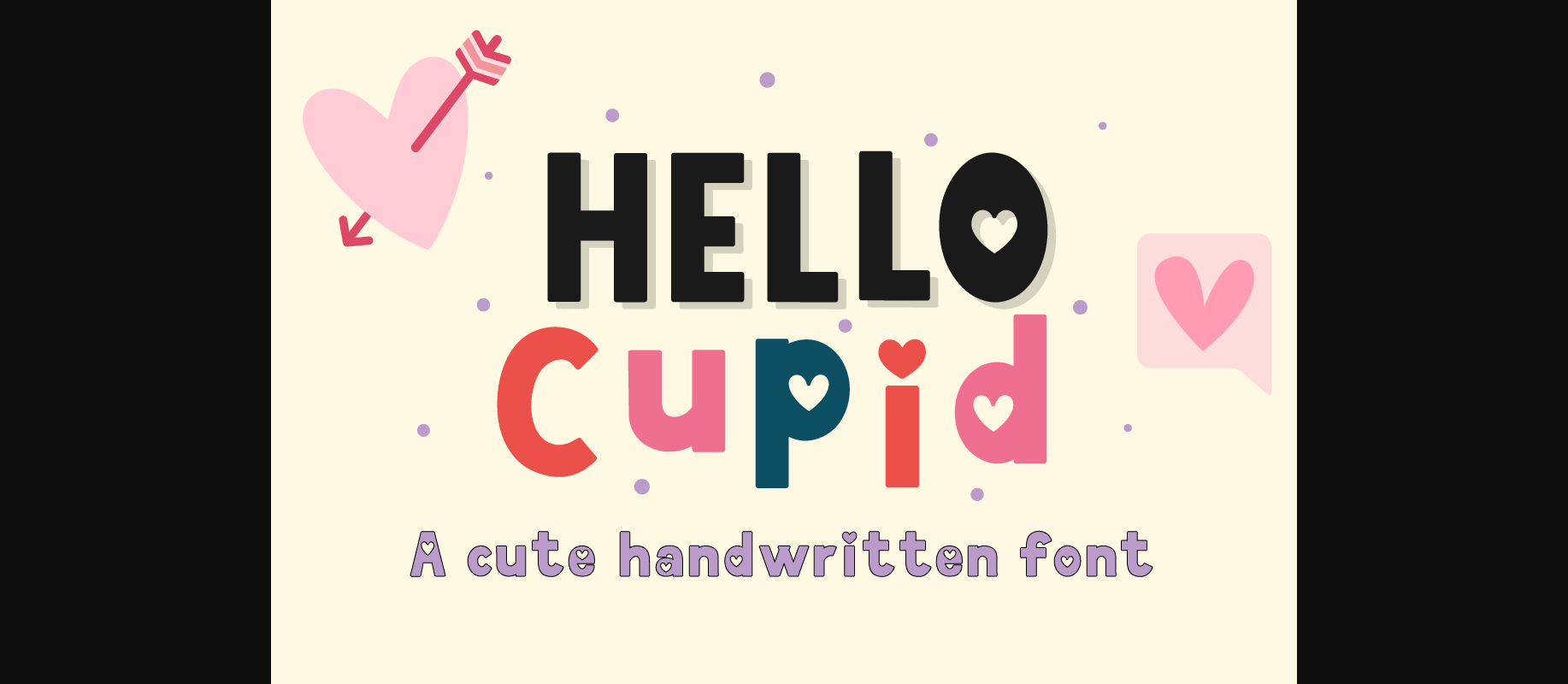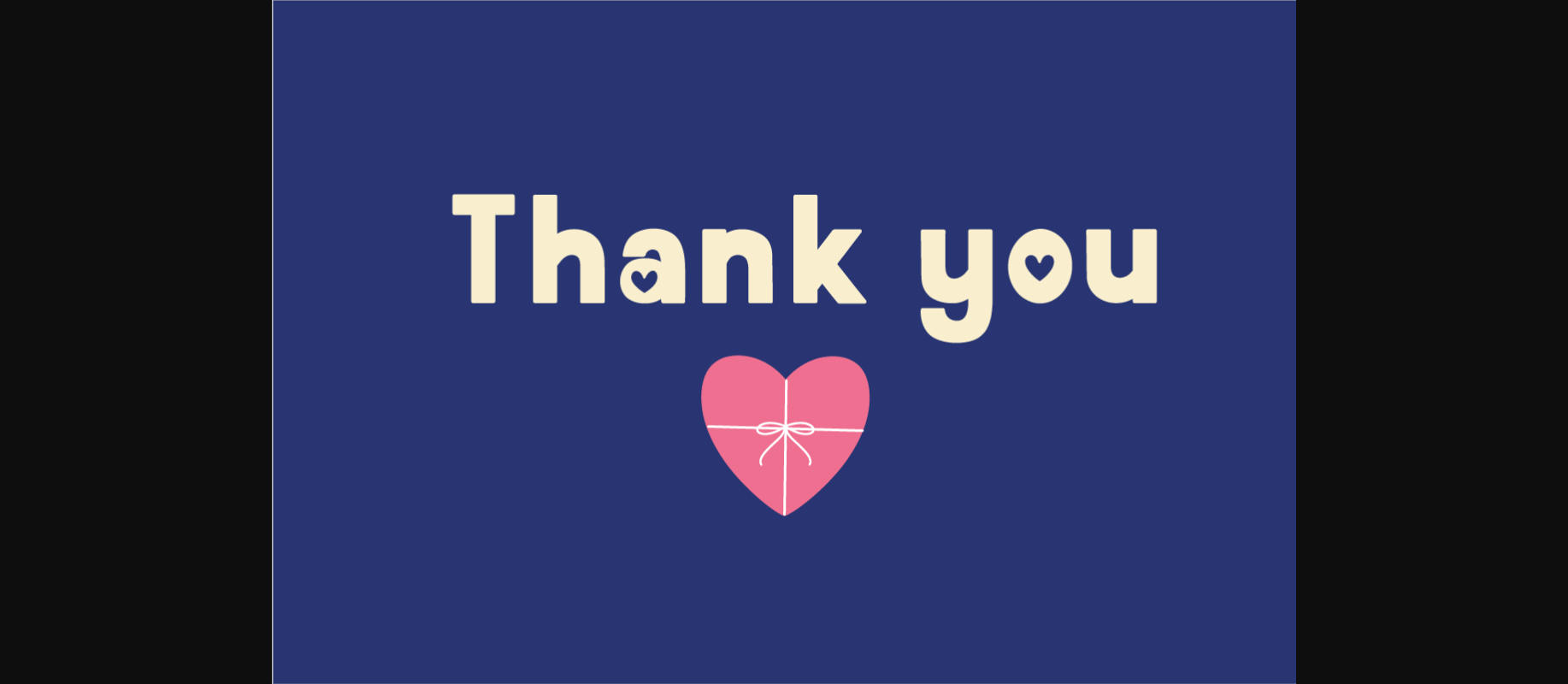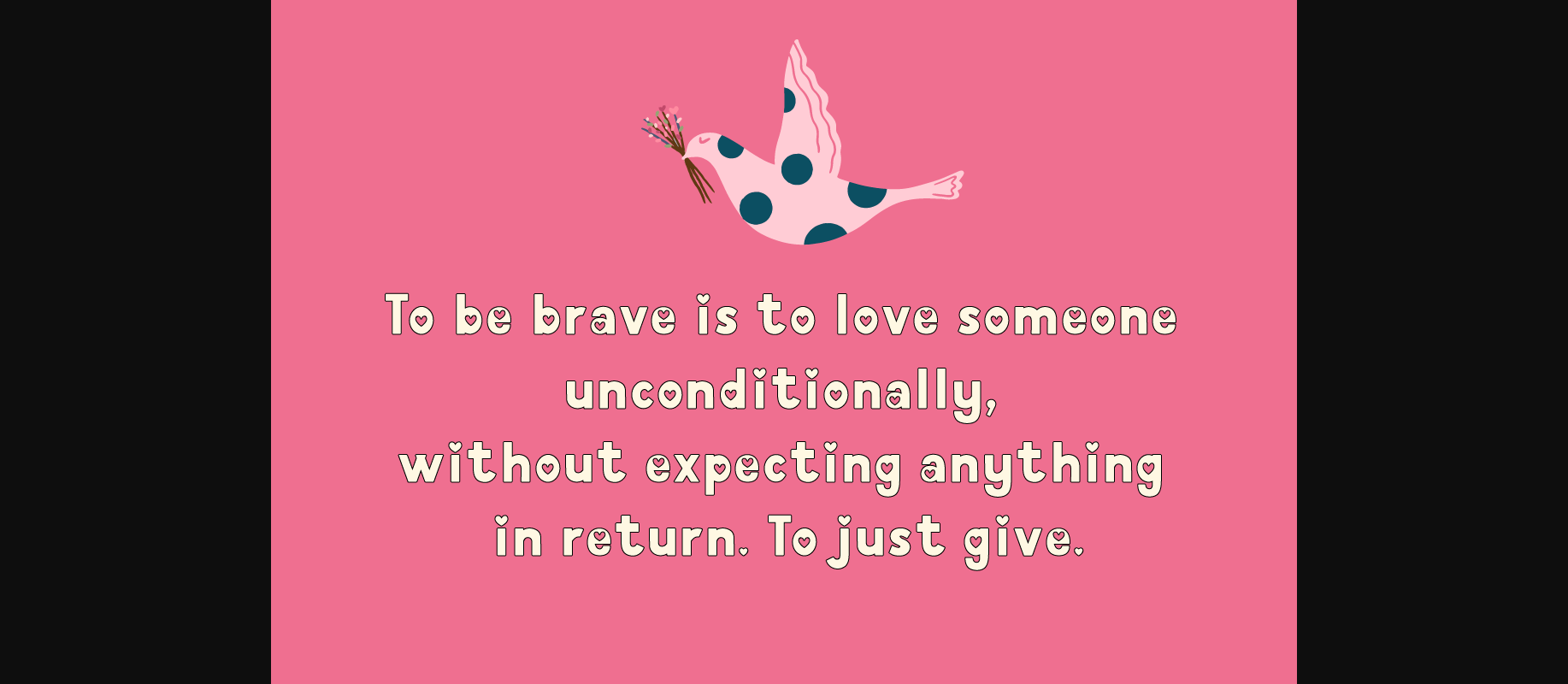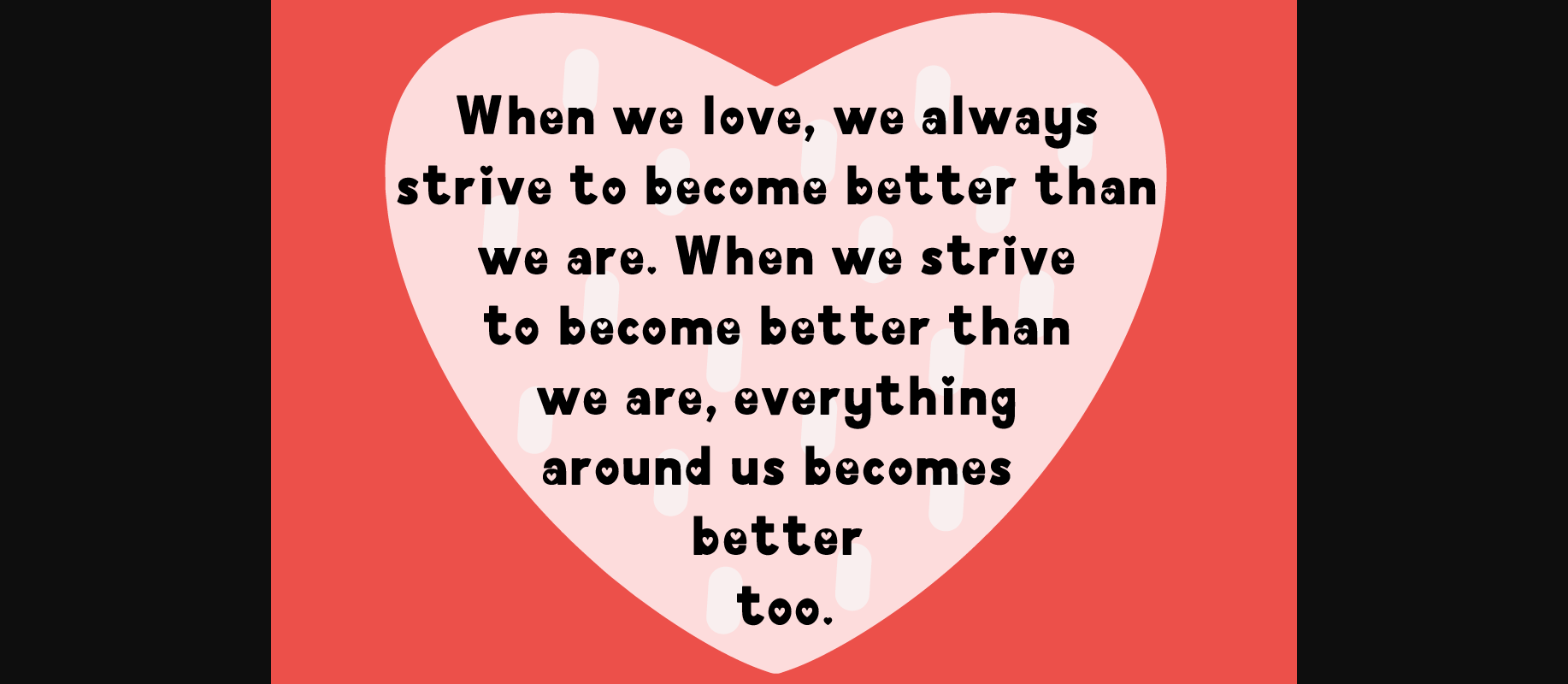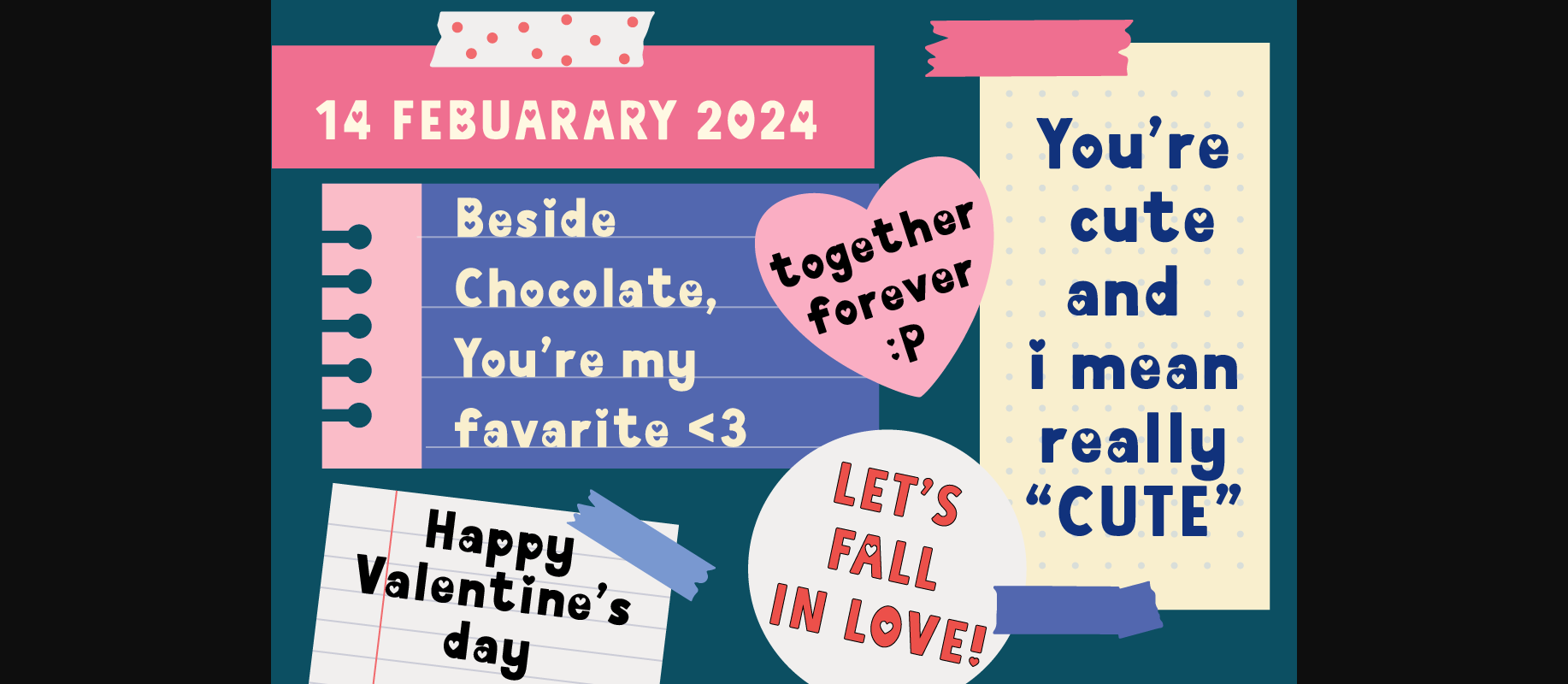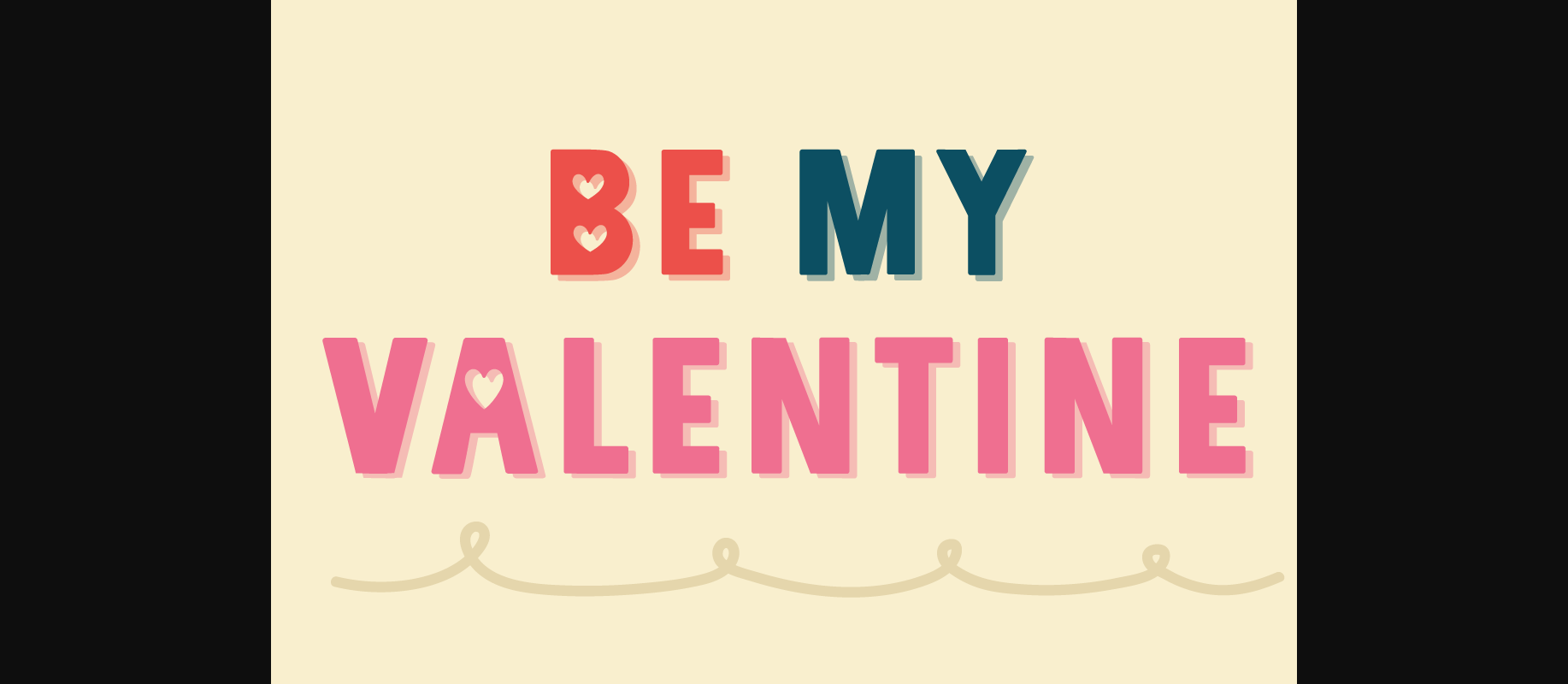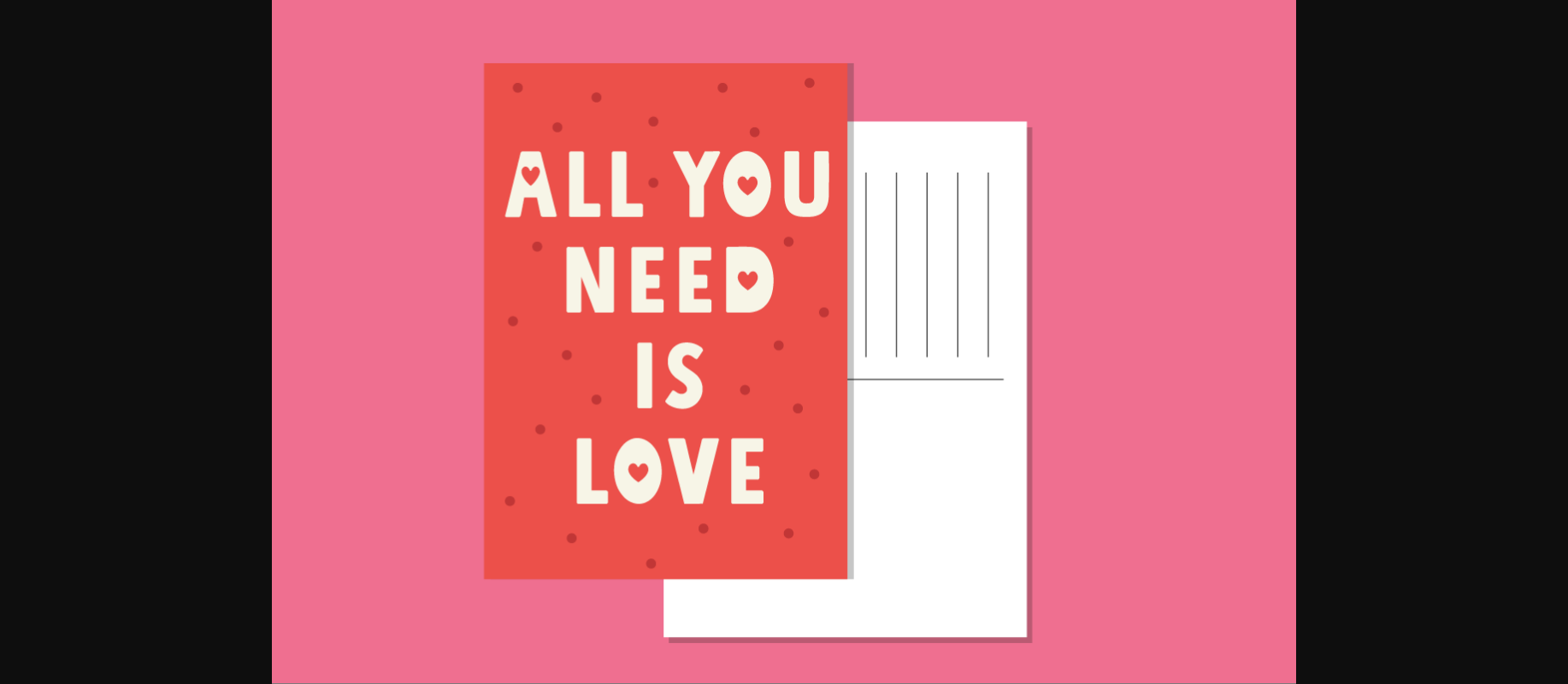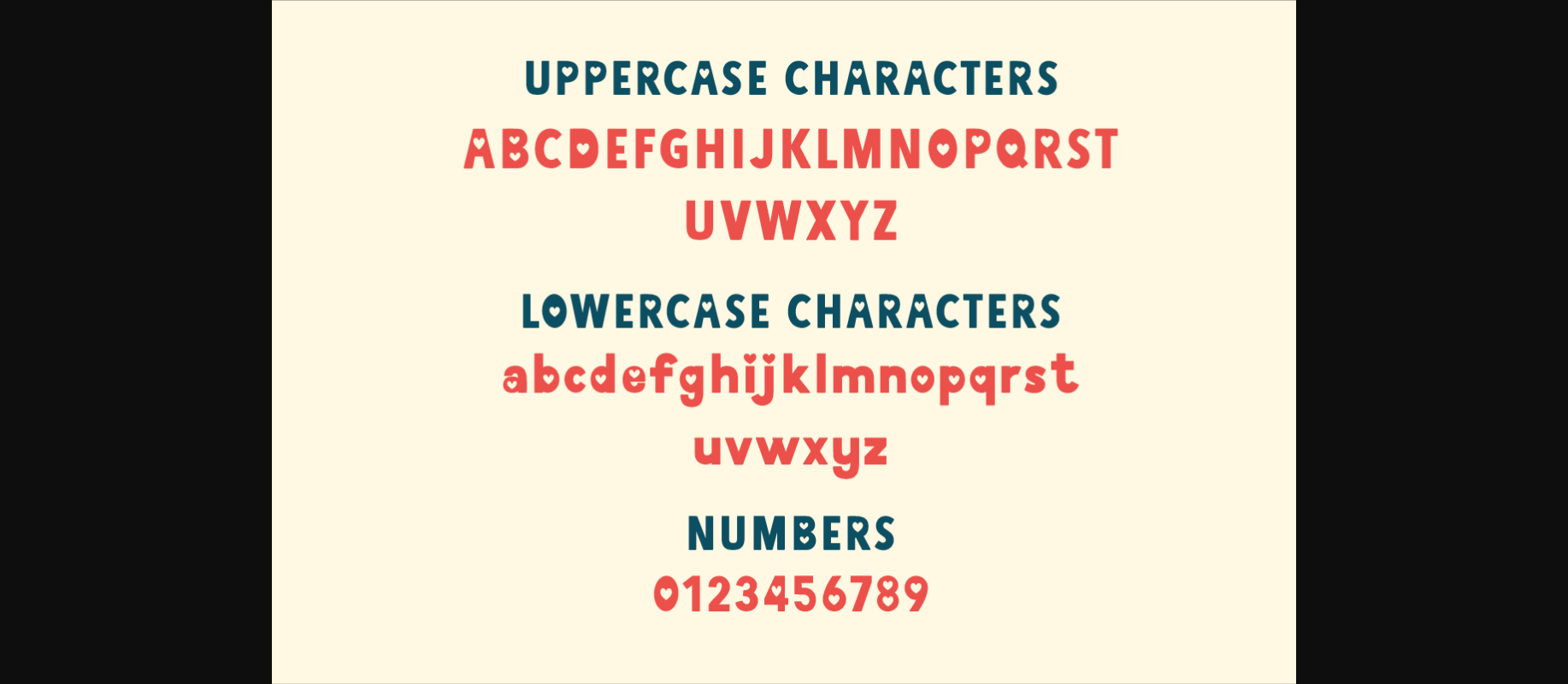
Hello Cupid Font
About Hello Cupid Font
HELLO CUPID is a hand written font with heart decoration. Perfect for Valentine projects, shirts, Valentineg designs, invitation cards, mugs, stickers, playful quotes, creating posters, logos, greeting cards, packaging, decorating the illustration and so much more!